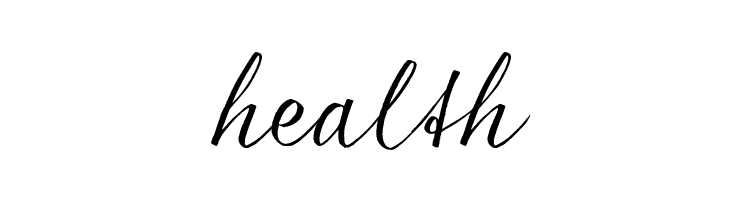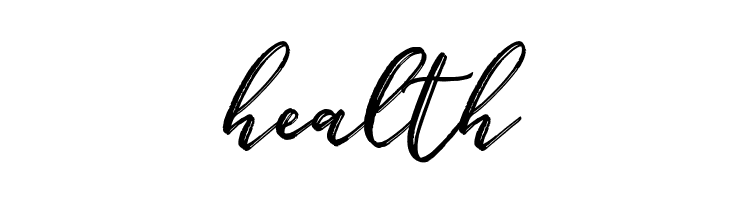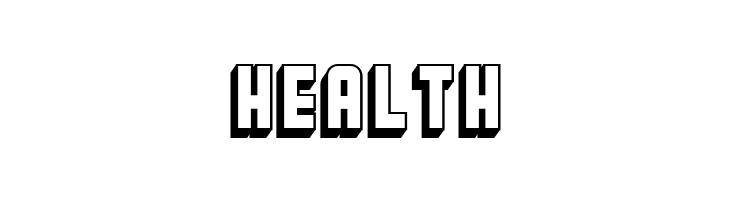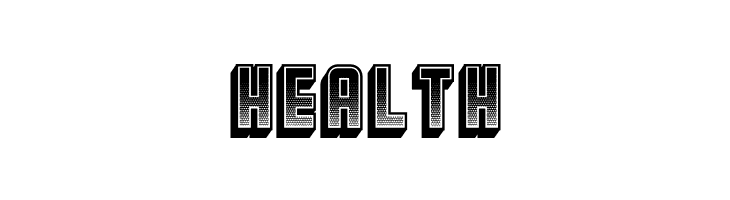
A bold, italic serif font with elegant, flowing strokes.
An elegant script font with flowing, cursive letters and sophisticated style.
A modern, geometric sans-serif font with uniform stroke width.
A bold, distressed font with a rugged, vintage appearance.
A distressed, bold font with a vintage, textured style.
A bold, expressive script font with a handwritten style.
A bold, 3D geometric font with a modern, impactful style.
A bold, decorative typeface with geometric shapes and a theatrical style.
A bold, decorative font with a dotted shadow effect and italic slant.
A bold, 3D gradient font with a vintage marquee style.